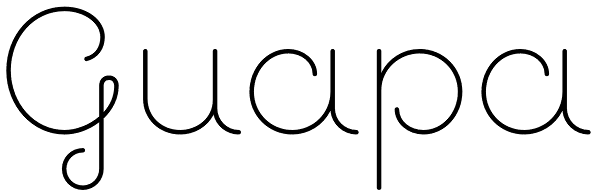
Guapa
Guapa was first born from a personal experiment: transforming a geometric sans serif 'à la Futura' into a charming postmodern deco design. It was applied in a poster specially designed for a typography exhibition called 'Pimp the type'. Later it...